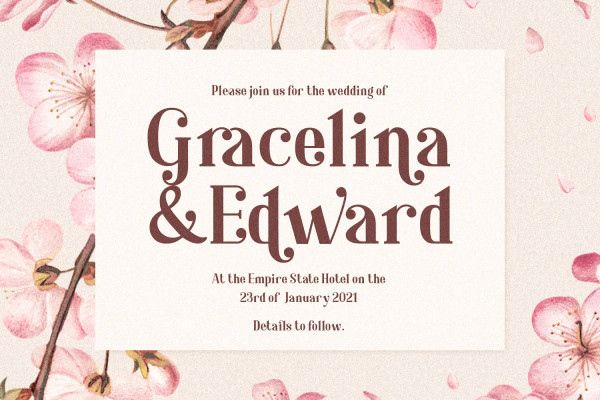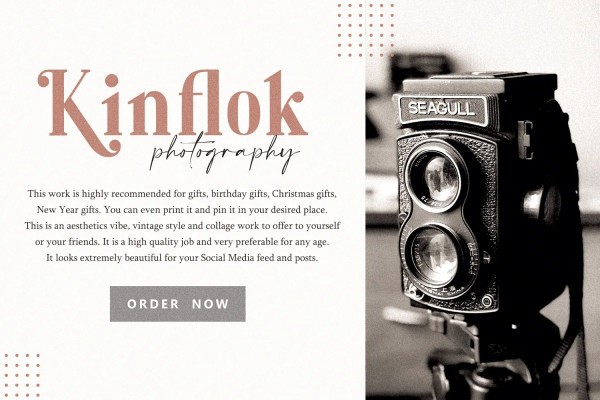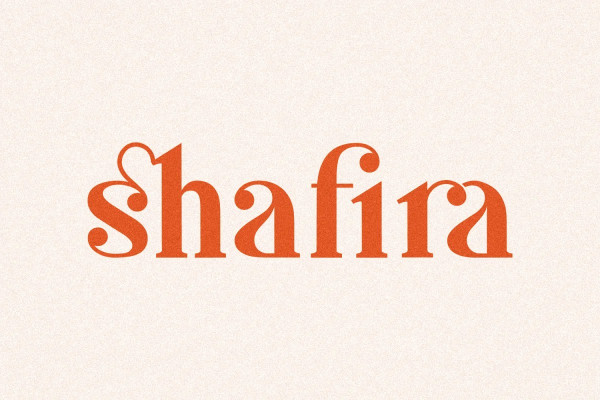
Shafira Font
Shafira Font is a modern and elegant serif font. It is a super unique ligature font that you wont forget! Shafira was built with OpenType features and includes more than 56 ligatures, alternate, numbers, punctuation, and it also supports other languages.
It’s the perfect fit for all luxury projects, such as wedding invitation, signatures, luxury logos, printed quotes, grettings cards, social media headers, product packaging and many more! This font coming with a lot of language support, this font is perfect for you.